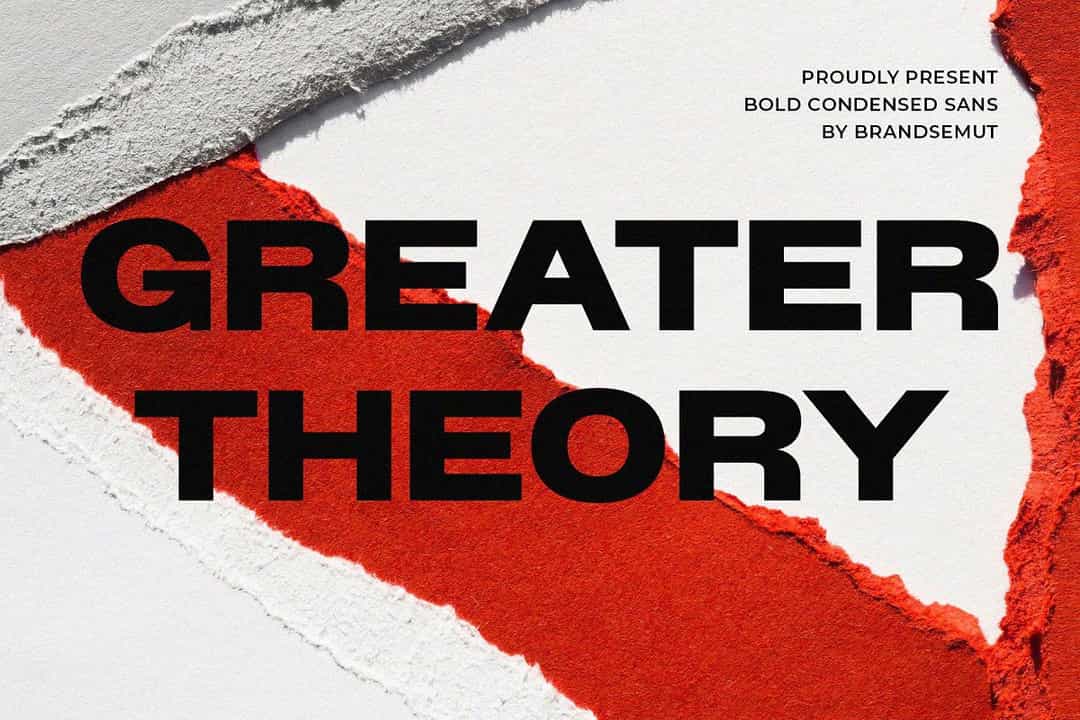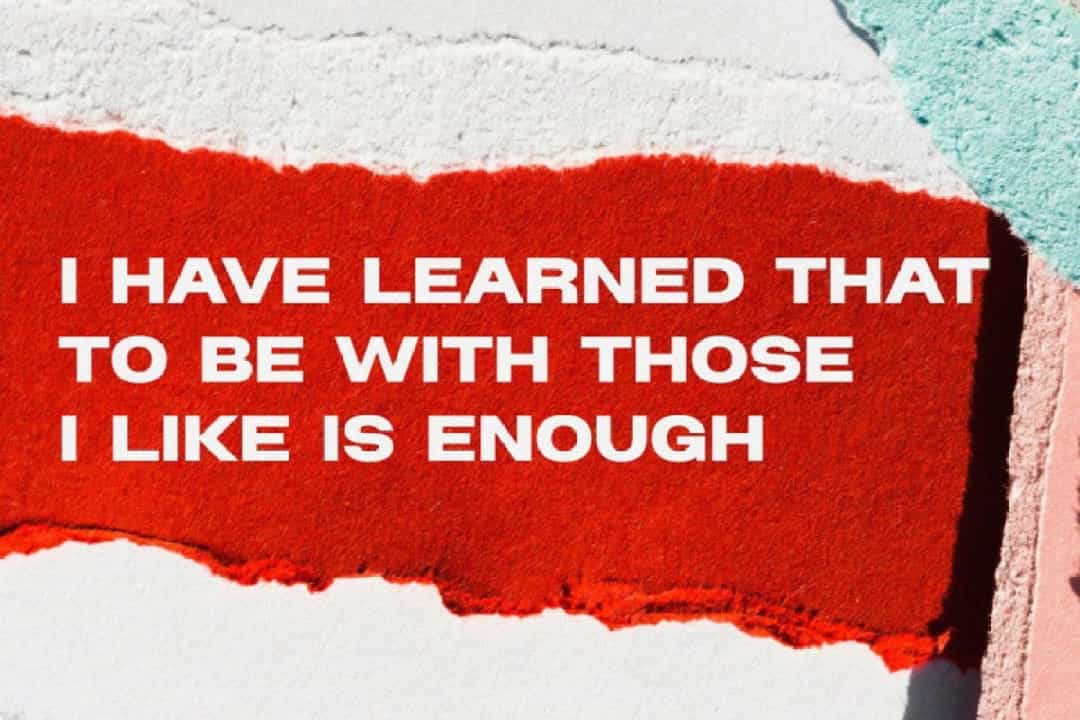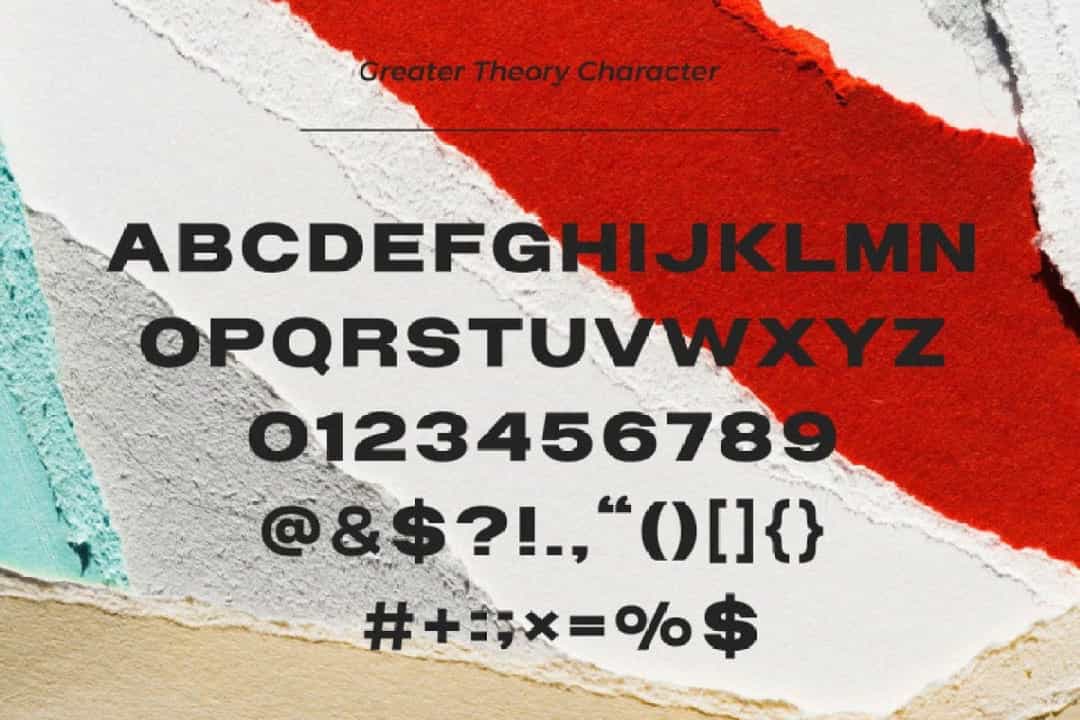
Greater Theory is a contemporary large and bold sans-serif font designed for use as the backdrop in branding, headings, logos magazines packaging for products invitations. Greater Theory stands out with its sleek edges and subtle curvatures which add sophistication to every project it graces.